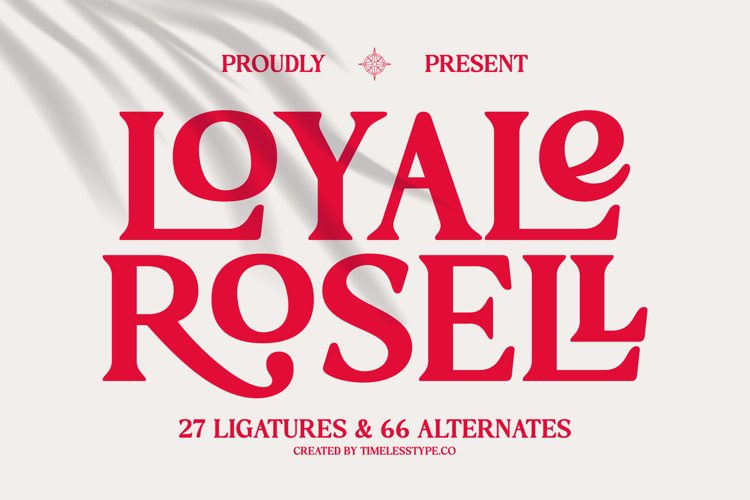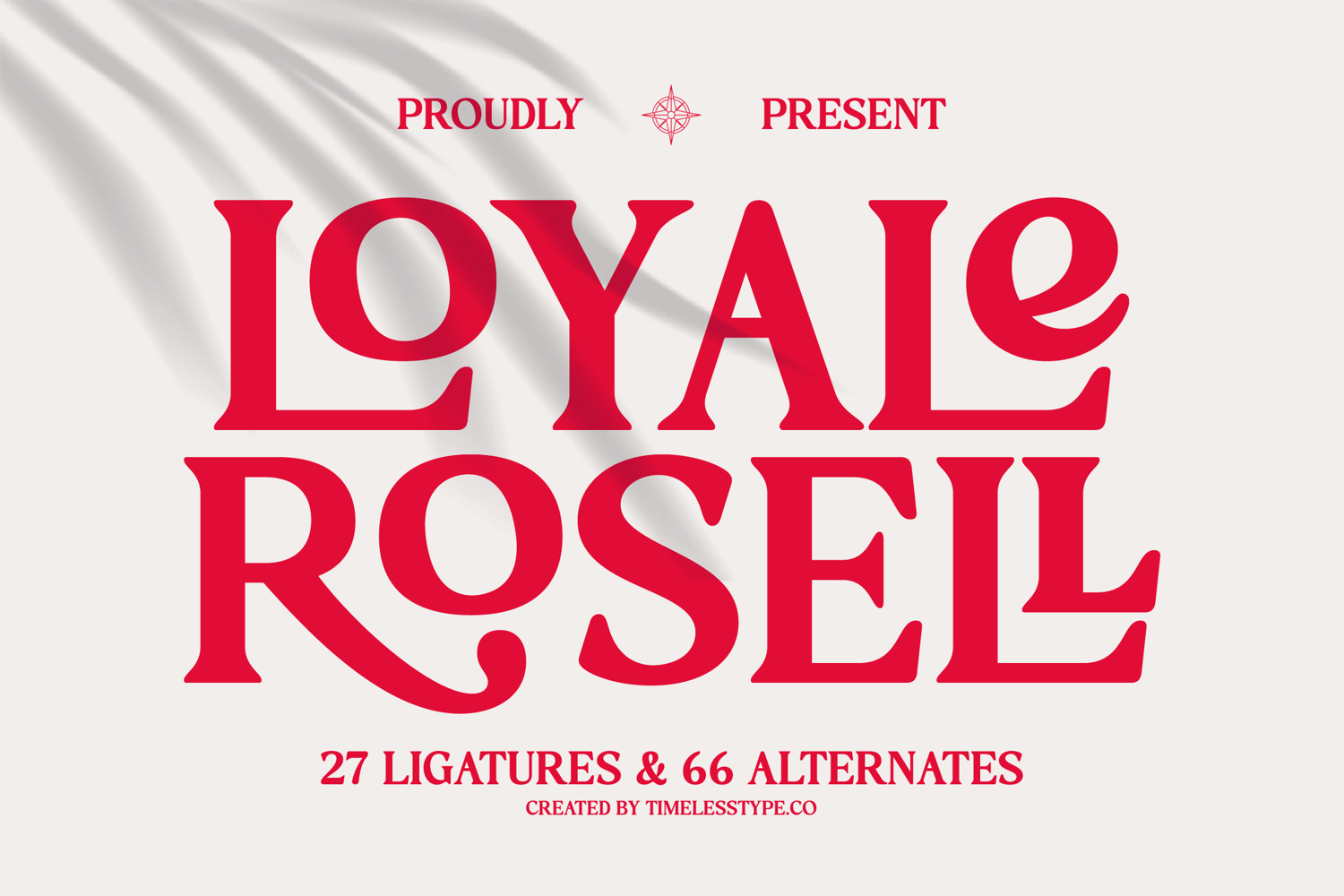
Loyale Rosell - Modern Serif Display
Elevate your design projects with the unparalleled sophistication of Loyale Rosell - Modern Serif Display. This exquisite typeface commands attention with its high-contrast letterforms and graceful serifs, meticulously crafted to exude both modernity and classic charm. It effortlessly captures a sense of refined elegance, making every word resonate with prestige and impact.
Unlock a world of creative possibilities with Loyale Rosell - Modern Serif Display's rich feature set. Boasting 27 ligatures and an impressive 66 alternates, this font offers unrivaled typographic versatility. Designers can craft truly unique logotypes, striking headlines, and personalized branding elements, ensuring your visual identity is distinct and memorable across all mediums.
Perfectly suited for applications demanding a touch of luxury and distinction, Loyale Rosell - Modern Serif Display excels in luxury branding, high-end editorial layouts, premium packaging, and sophisticated event invitations. With its extensive multilingual support, Loyale Rosell - Modern Serif Display adapts seamlessly across global markets, making it incredibly versatile for international projects.